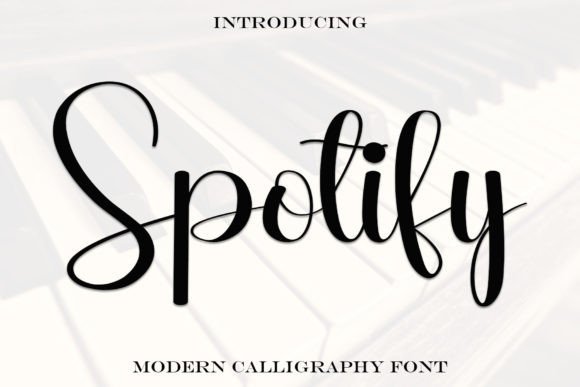
Spotify Font Download Free – Premium Spotify Font: In the world of design, fonts often carry as much emotion and personality as colors or imagery. One such font that has caught the attention of creators, bloggers, and branding experts alike is the Spotify Font – a stylish handwritten typeface that brings together modern flair and classic sophistication.
Whether you’re designing a logo, crafting social media posts, or adding a personal touch to your website, the Spotify-inspired font can transform an ordinary design into something memorable. In this guide, you’ll discover what makes the Spotify Font so appealing, where to download it for free, and how to use it creatively in your projects.
What Is the Spotify Font?
When people mention the “Spotify Font,” they usually think of two different things:
1. The official Spotify logotype, which uses a clean and geometric sans-serif font called Gotham (specifically Gotham Medium, designed by Tobias Frere-Jones).
2. A stylish handwritten script named Spotify Font found on font sites – a calligraphic-inspired font that’s completely different from the company’s branding.
For graphic designers and content creators, the second option is particularly exciting. This Spotify handwritten font isn’t officially linked to the brand but draws inspiration from timeless calligraphy and modern lettering trends. With flowing curves and elegant strokes, it adds a personal, artistic vibe that’s perfect for logos, invitations, packaging, and social media graphics.
Why Use a Handwritten Font Like Spotify?
Fonts like the Spotify script bring something unique to design projects that standard sans-serif or serif fonts can’t:
✅ Authentic personality – Handwritten fonts often feel more human, warm, and approachable.
✅ Stylish and trendy – The Spotify font follows a modern calligraphic style that’s popular among lifestyle brands, boutiques, and creative agencies.
✅ Versatility – Use it in headers, logos, product labels, or quotes – wherever you need an elegant handwritten touch.
✅ Attention-grabbing – The stylish curves help text stand out, making your designs more memorable.
Creative Ways to Use Spotify Font
The charm of the Spotify handwritten font lies in its versatility. Here are a few ideas on where it can shine:
🎨 Logo design – Add character and individuality, especially for boutique brands, cafés, or artisanal shops.
📸 Social media graphics – Make quotes, announcements, and Instagram posts more stylish.
💌 Invitations and greeting cards – Perfect for weddings, birthdays, or holiday cards with an elegant handmade feel.
🛍 Packaging – Adds a crafted, premium touch to product labels and packaging.
🖋 Blog headers & website banners – Create a friendly and artistic vibe that welcomes readers.
👗 Fashion and lifestyle branding – The script style fits perfectly with chic, trendy branding.
Fonts Similar to Spotify Font
If you want to explore beyond the Spotify handwritten script, here are a few similar free fonts that share the same modern calligraphy vibe:
• Playlist Script – Free and stylish, with a natural hand-lettered feel.
• Brusher – Bold strokes, ideal for energetic branding.
• Great Vibes – Elegant and flowing, perfect for formal invites.
• Allura – Light, graceful strokes that add a romantic touch.
• Pacifico – A casual, rounded script that feels fresh and friendly.
Many of these fonts are available on Google Fonts or trusted repositories, so you can mix and match until you find the perfect look.
Final Thoughts: Bring Elegant Calligraphy to Your Designs
The Spotify Font, with its blend of modern curves and timeless calligraphic elegance, opens up countless design possibilities. Whether you’re creating a minimalist logo, a heartfelt wedding invitation, or a stylish Instagram post, this font adds a handcrafted charm that instantly elevates your work.